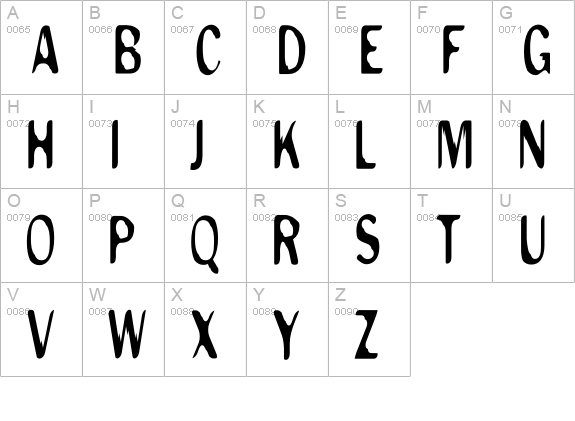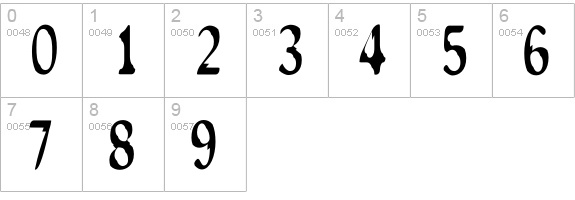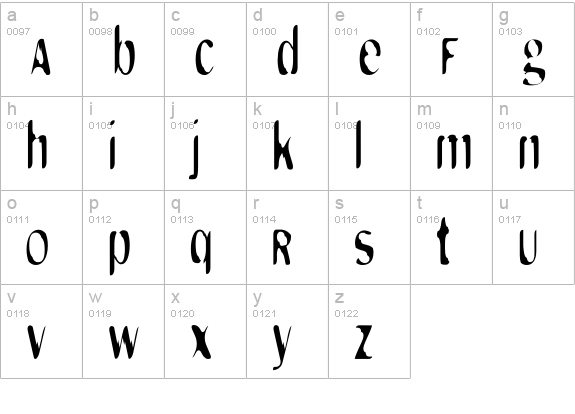
MonkeyCaughtStealing-Elong Font Details
Introducing MonkeyCaughtStealing-Elong font, a playful and quirky typeface that is sure to add a fun and whimsical touch to your designs. This unique font features elongated characters with a mischievous flair, perfect for projects that need a touch of personality. The MonkeyCaughtStealing-Elong font is freely available to download at FontsMarket.com, making it easy to add a touch of creativity to your projects without breaking the bank. Whether you're working on a branding project, invitation design, or any other creative endeavor, this font is sure to make a statement and stand out from the crowd. With its charming and playful aesthetic, MonkeyCaughtStealing-Elong font is a versatile choice that can be used for a wide range of design projects. So why wait? Download this free font today and let your creativity run wild with MonkeyCaughtStealing-Elong font!